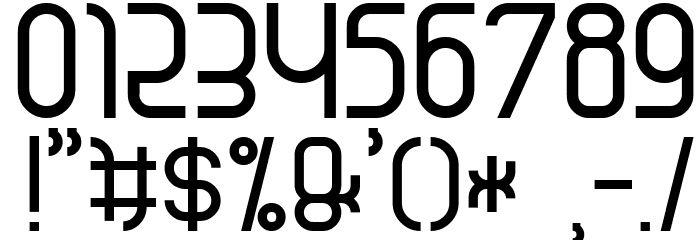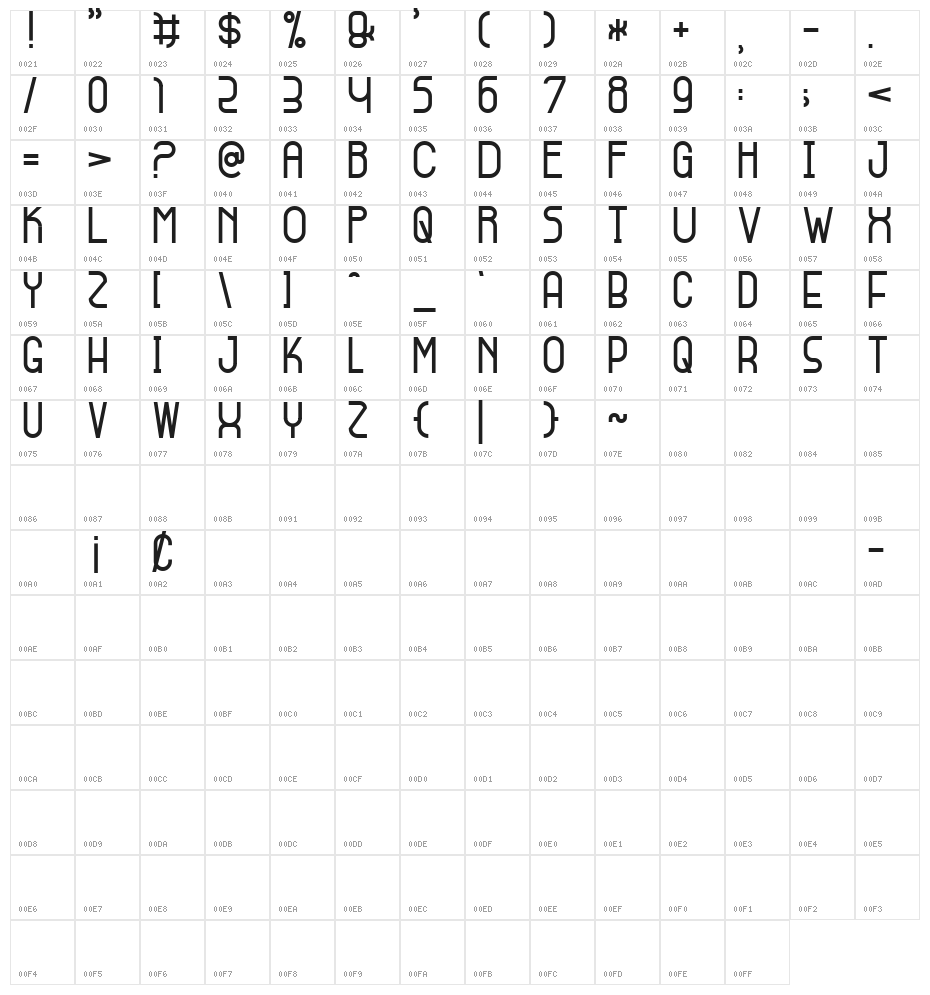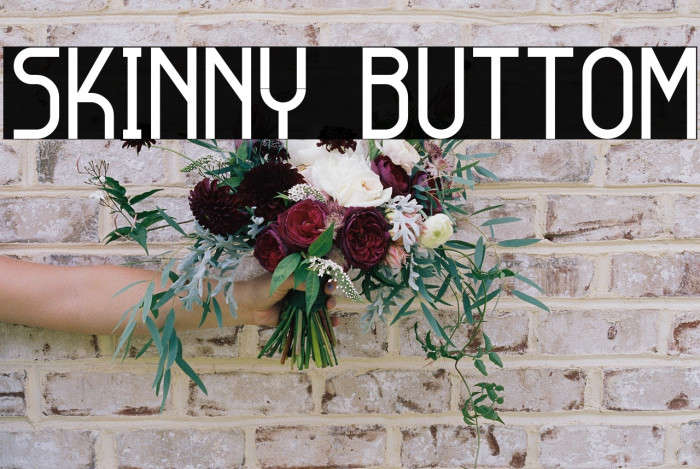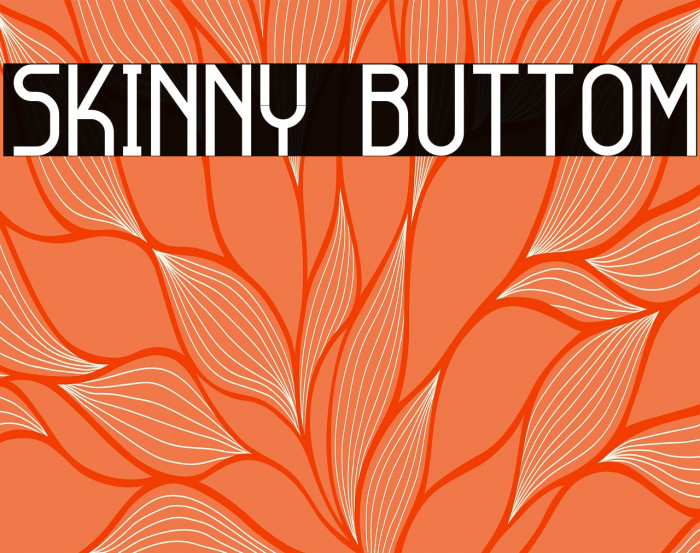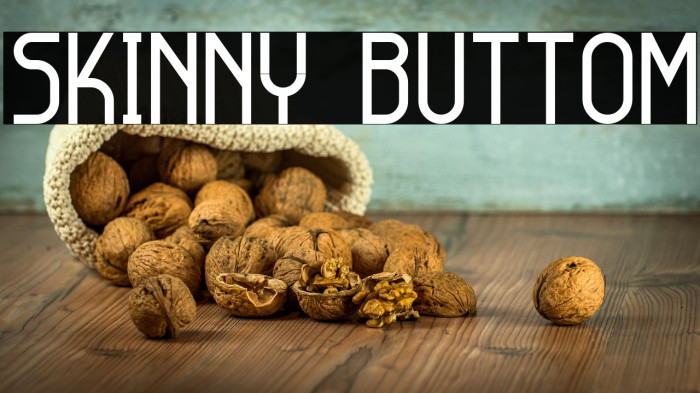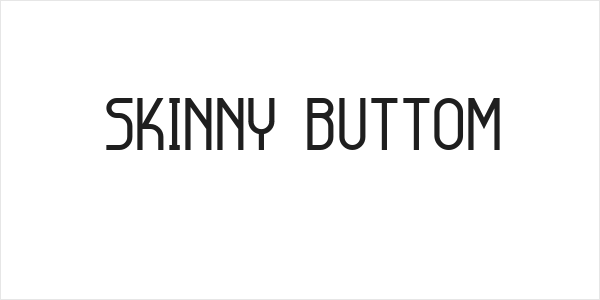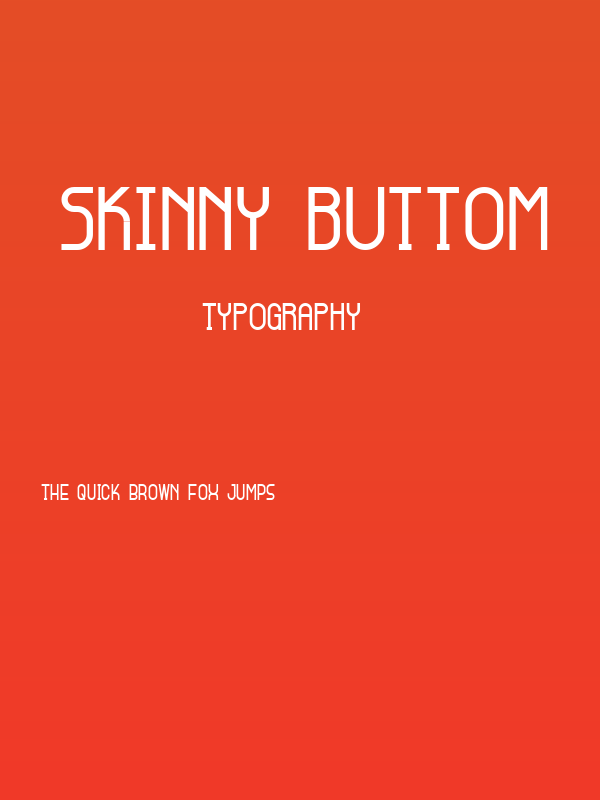
Skinny Buttom Font
Skinny Buttom Description
This font features a modern and sleek design with a geometric structure. The characters are tall and narrow, giving it a distinctive, elongated appearance. The strokes are consistent in width, providing a uniform look across all characters. The rounded edges soften the overall aesthetic, making it approachable while maintaining a contemporary feel. The numbers and special characters share the same design principles, ensuring cohesion throughout the typeface. This font is versatile, suitable for both digital and print media, and can be used effectively in various design contexts.
| Proposed Projects | Ideal for branding, editorial design, posters, and digital interfaces. |